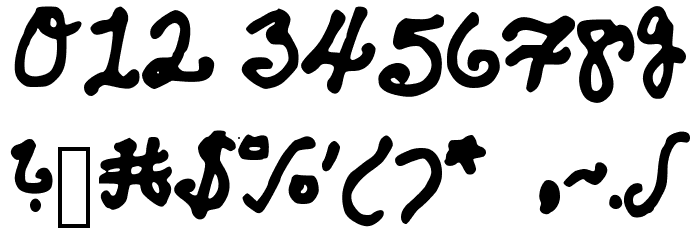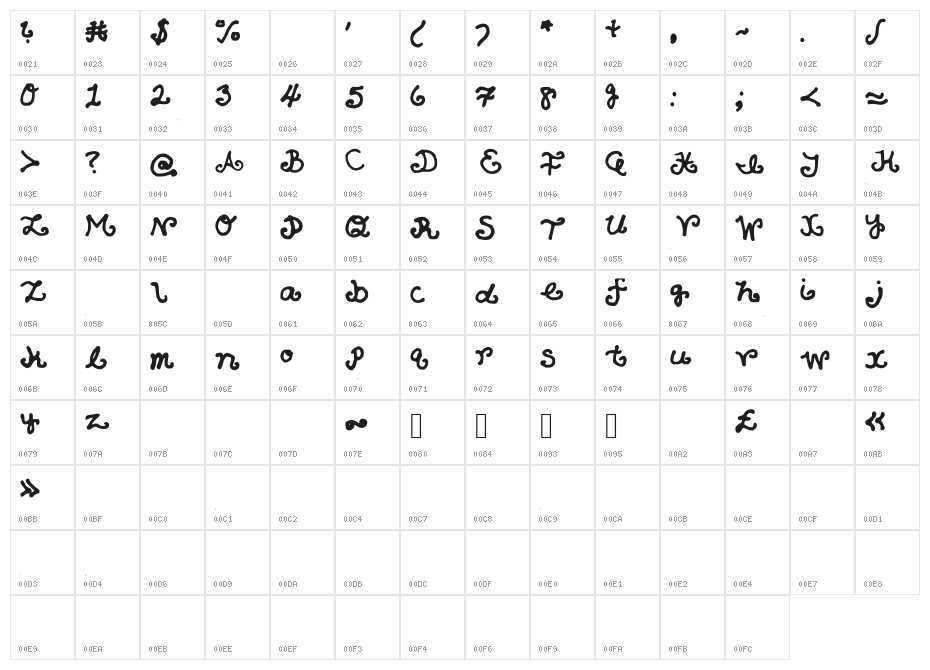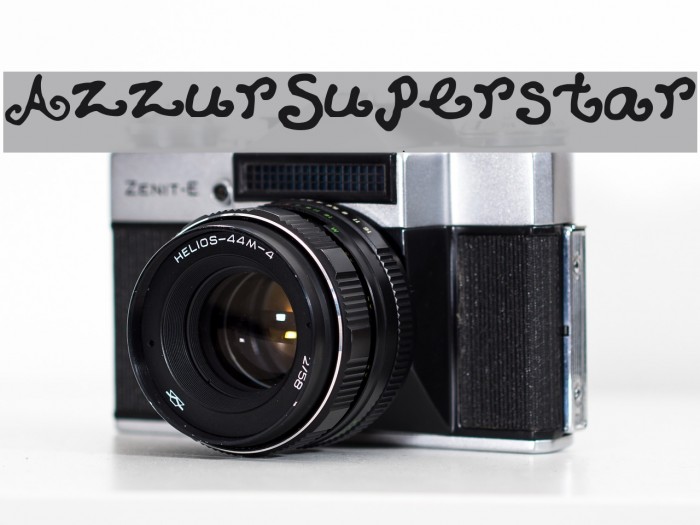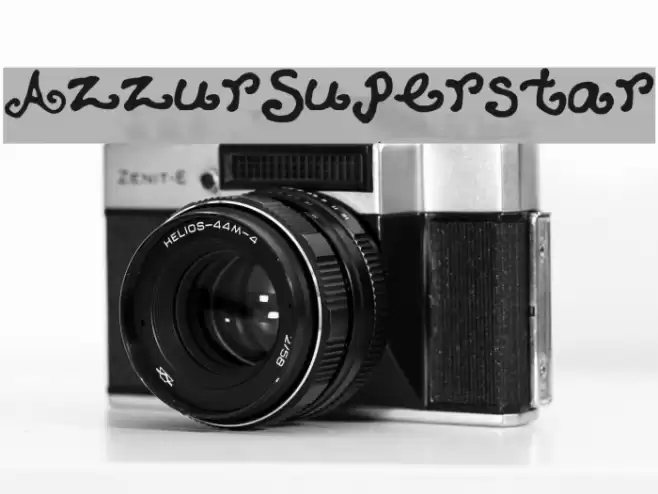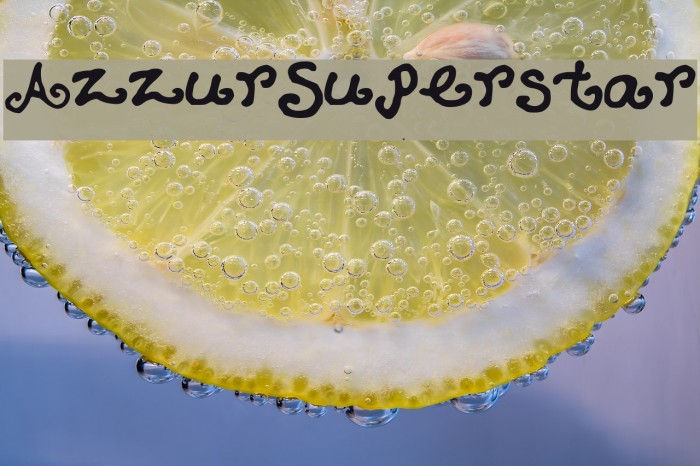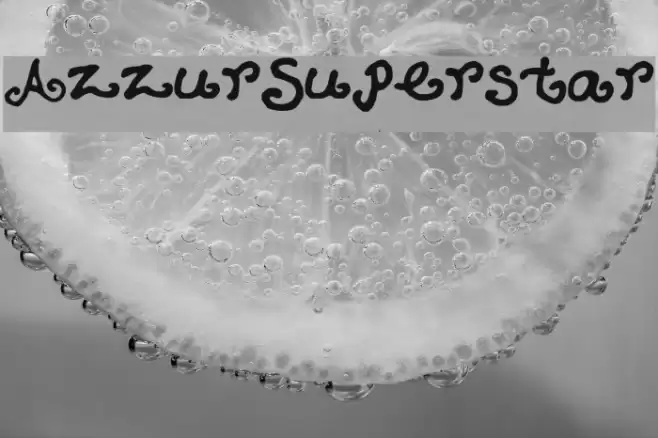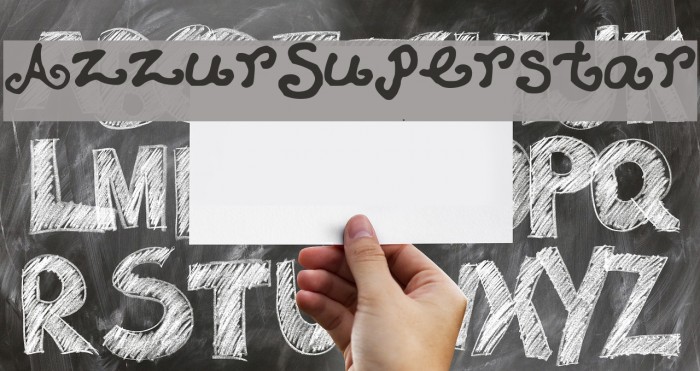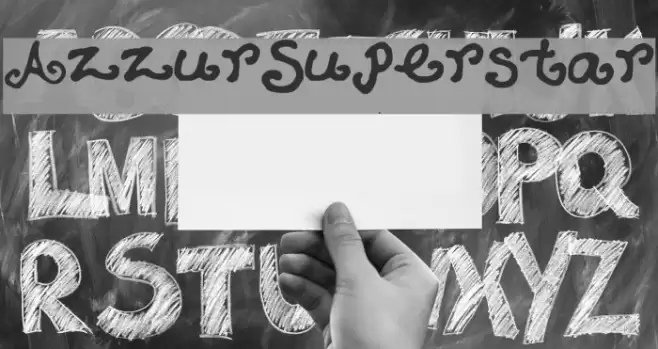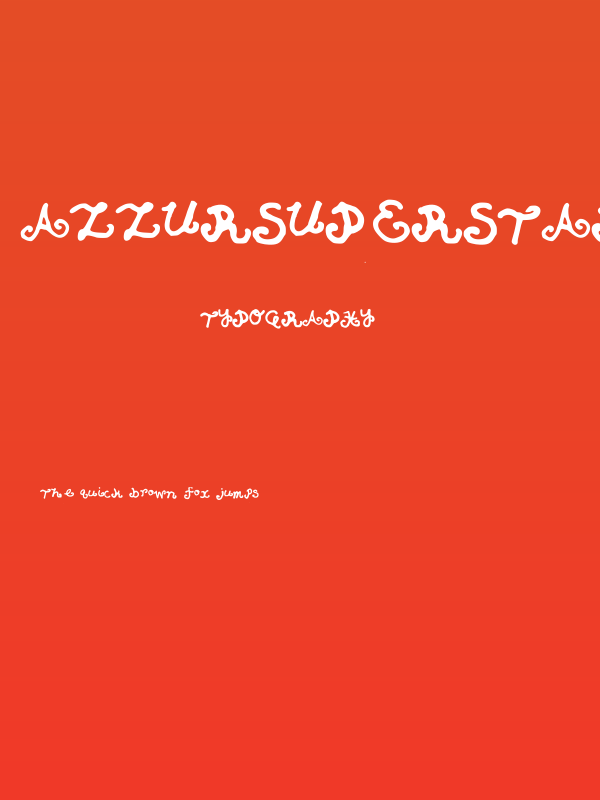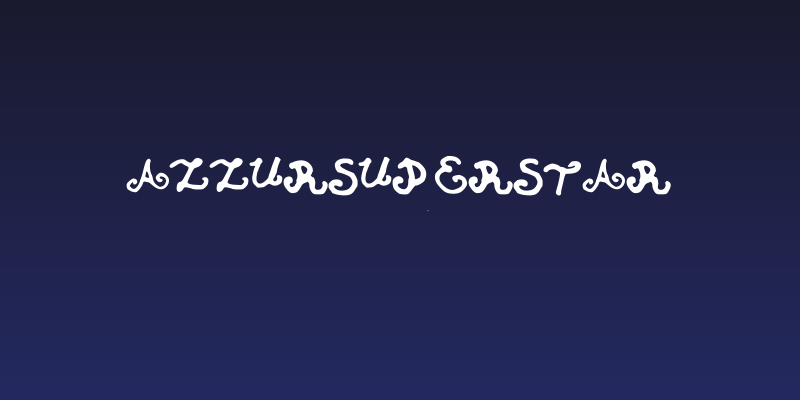
AzzurSuperstar Font
AzzurSuperstar Description
This font features a playful and whimsical design, characterized by its curly and flowing letterforms. The uppercase letters exhibit a unique blend of curves and loops, giving them a lively appearance. The lowercase letters maintain this playful style, with some characters featuring exaggerated tails and loops. The numbers are bold and maintain the same whimsical style, ensuring consistency throughout. Special characters are creatively designed, adding to the font's overall charm. This font is ideal for projects that require a fun and engaging aesthetic.